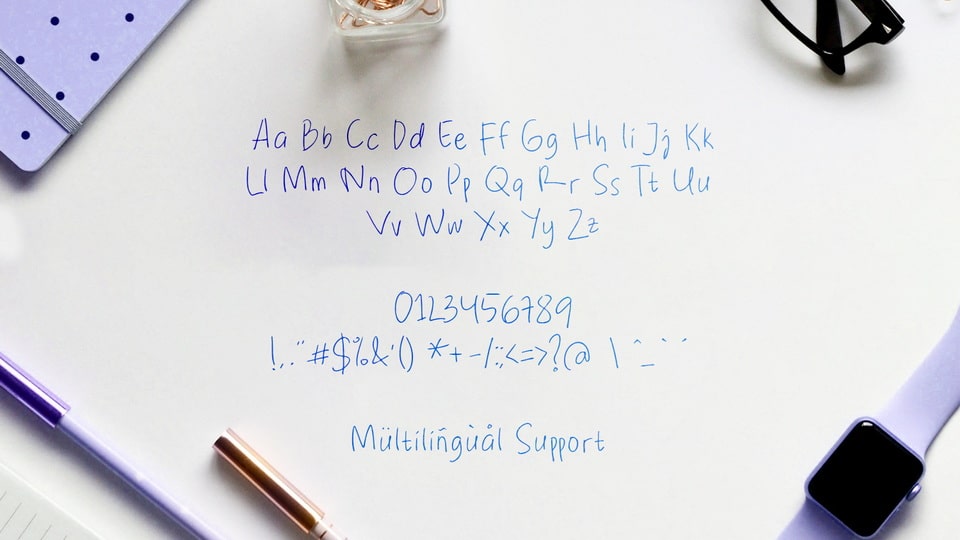
Note Saia is a simple and cute handwritten font that’s perfect for notes and personal messages. It features friendly, casual letterforms with gentle curves and a relaxed style, capturing the charm of a handwritten note. Ideal for to-do lists, greeting cards, and playful branding, this font adds a touch of warmth and personality to your text.
Note Saia font is designed to feel natural and approachable, ensuring your messages come across as genuine and heartfelt. The font’s simplicity and cuteness make it incredibly versatile, fitting seamlessly into various design contexts while maintaining a delightful, personal touch.